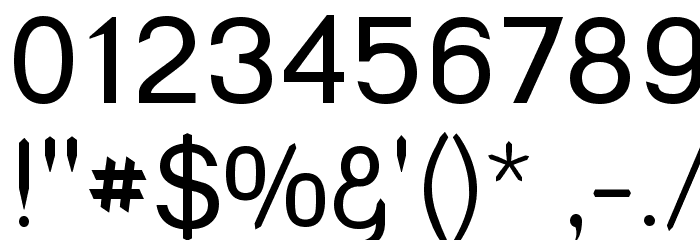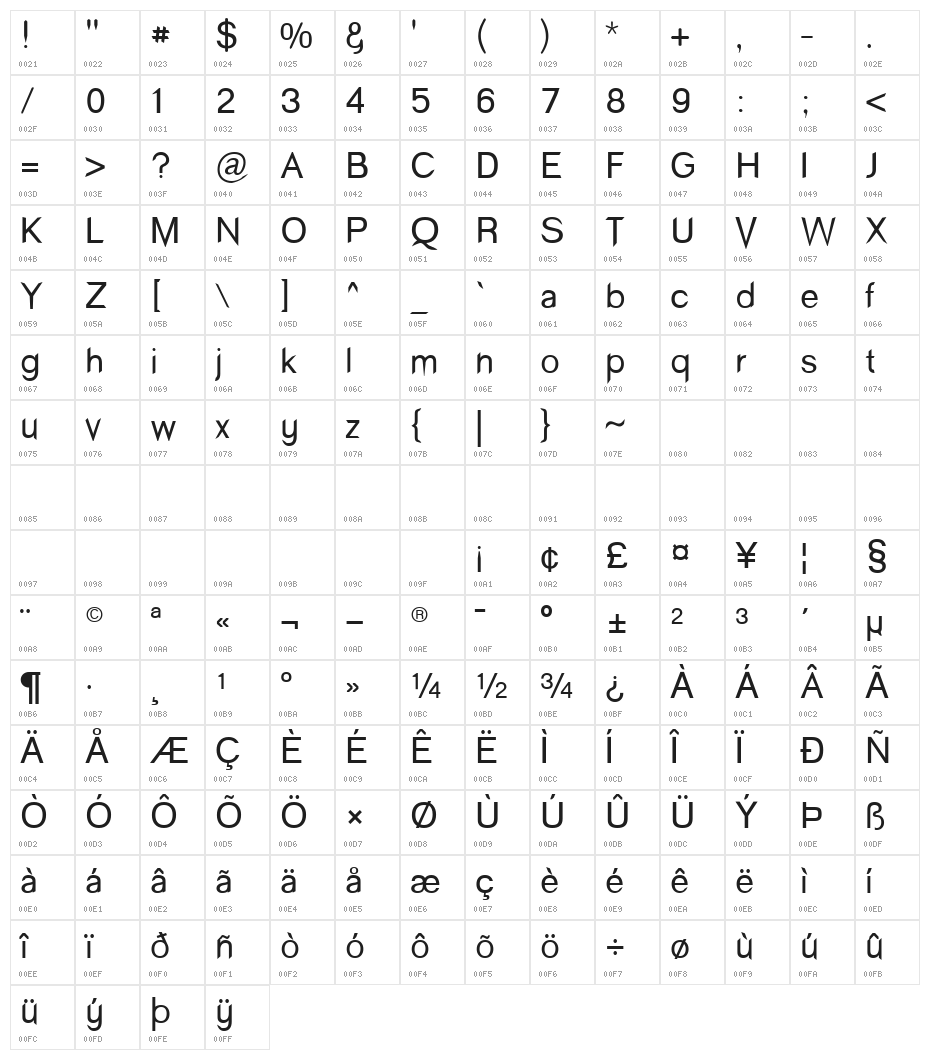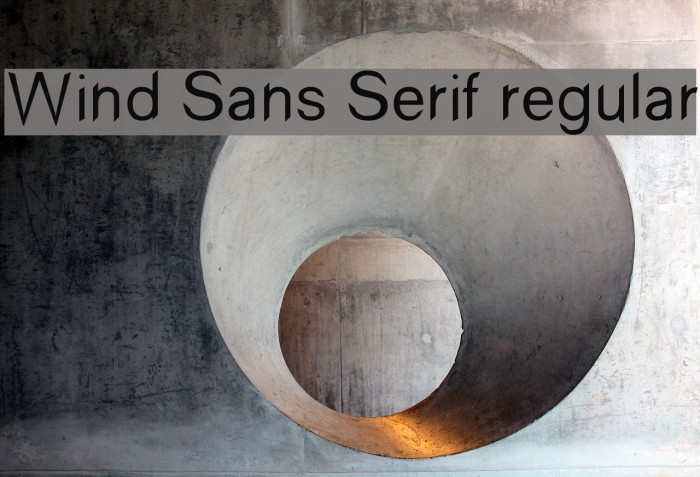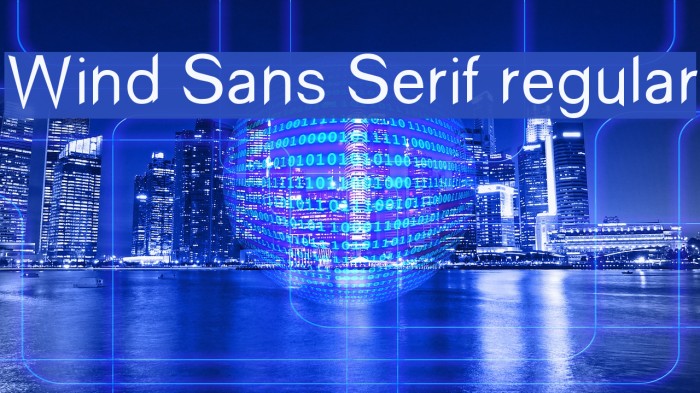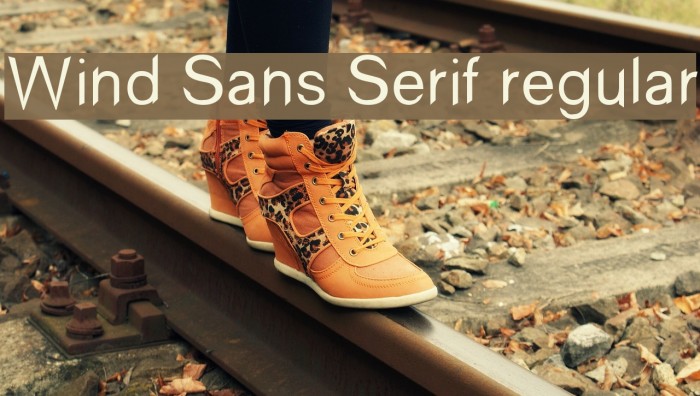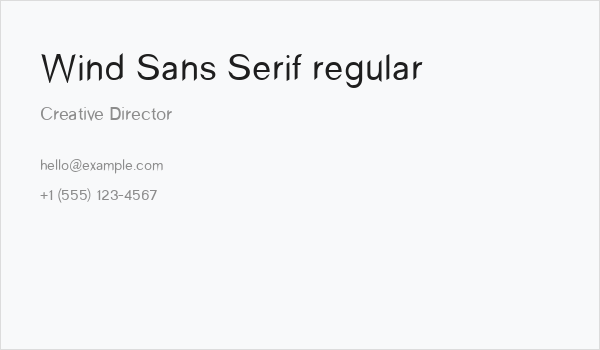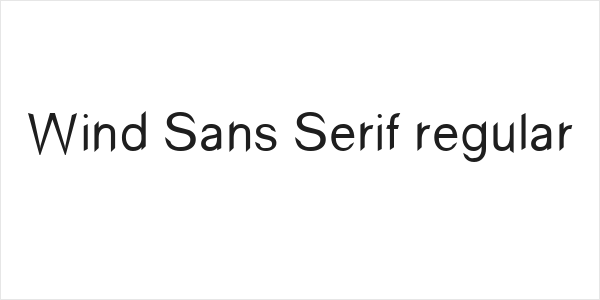
Wind Sans Serif regular Font
Wind Sans Serif regular Description
This typeface features a clean and modern sans-serif design, characterized by its simplicity and readability. The letters are evenly spaced with a consistent stroke width, providing a balanced and harmonious appearance. The uppercase and lowercase letters are well-proportioned, making it suitable for a variety of applications. The numerals are clear and distinct, ensuring legibility in both print and digital formats. Special characters are included, maintaining the font's cohesive style. Its straightforward design makes it versatile for both professional and casual use.